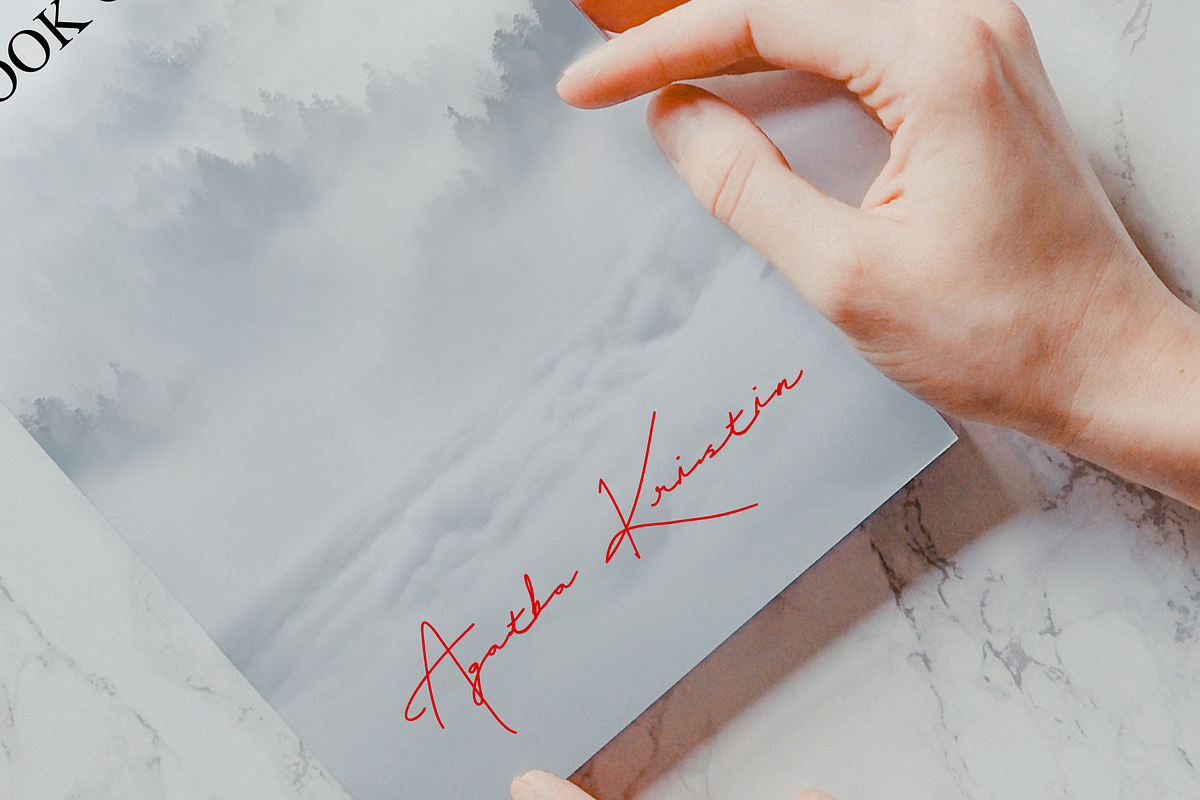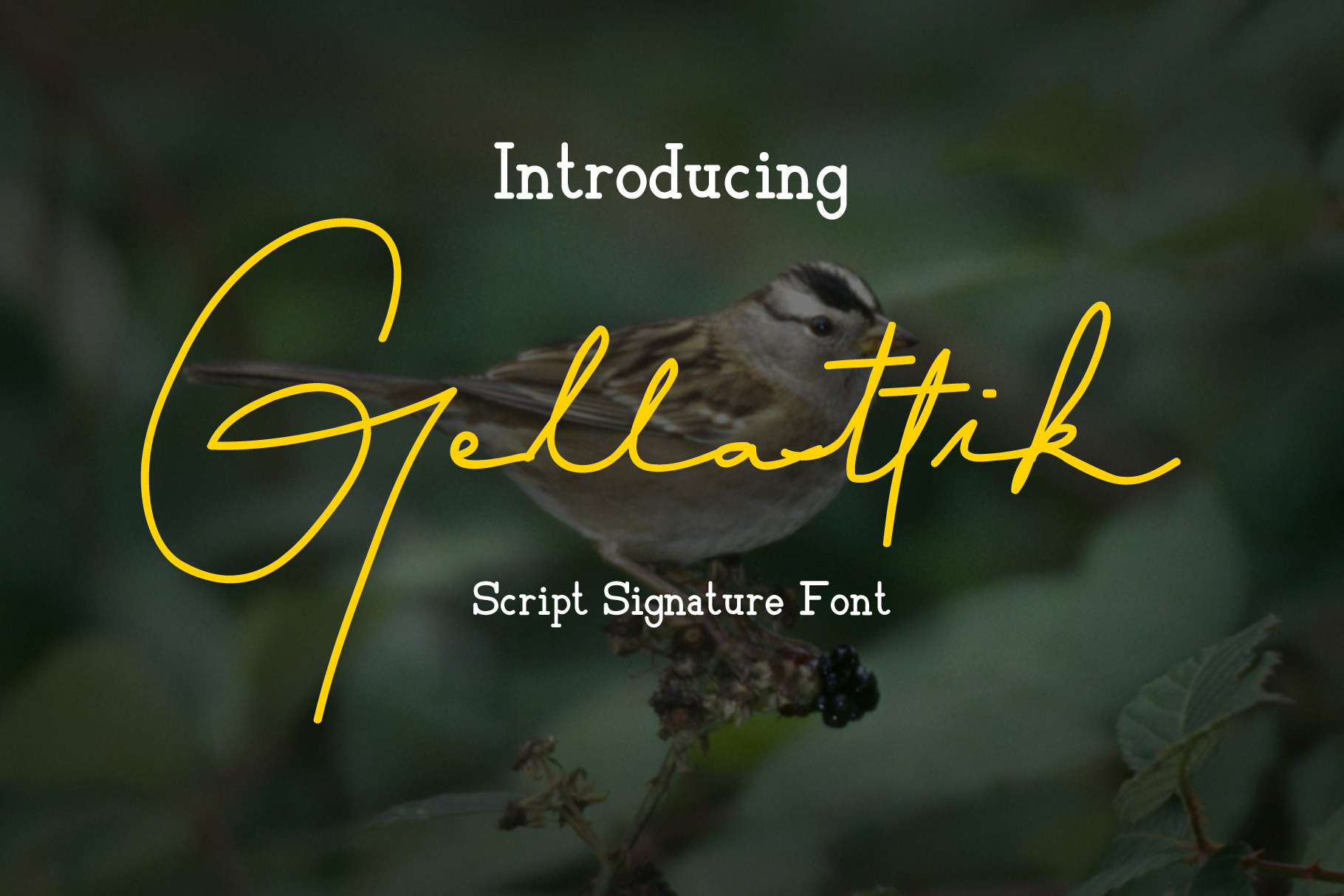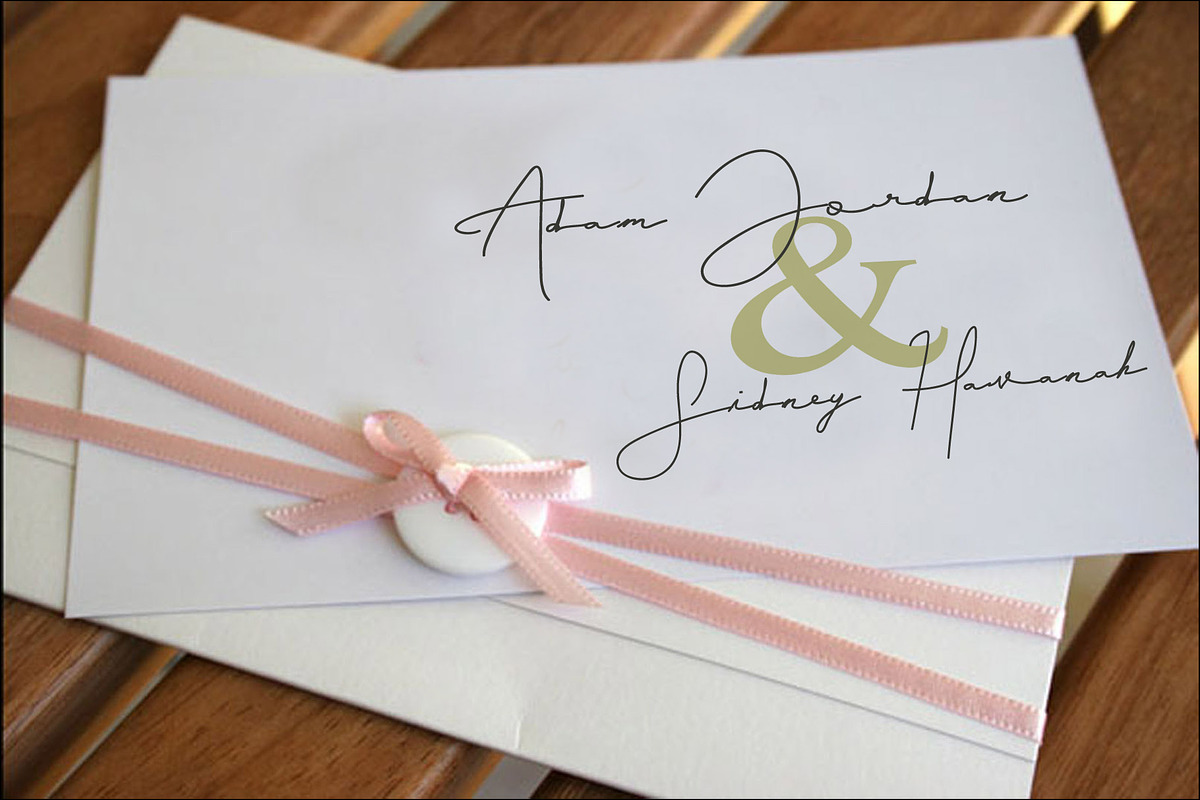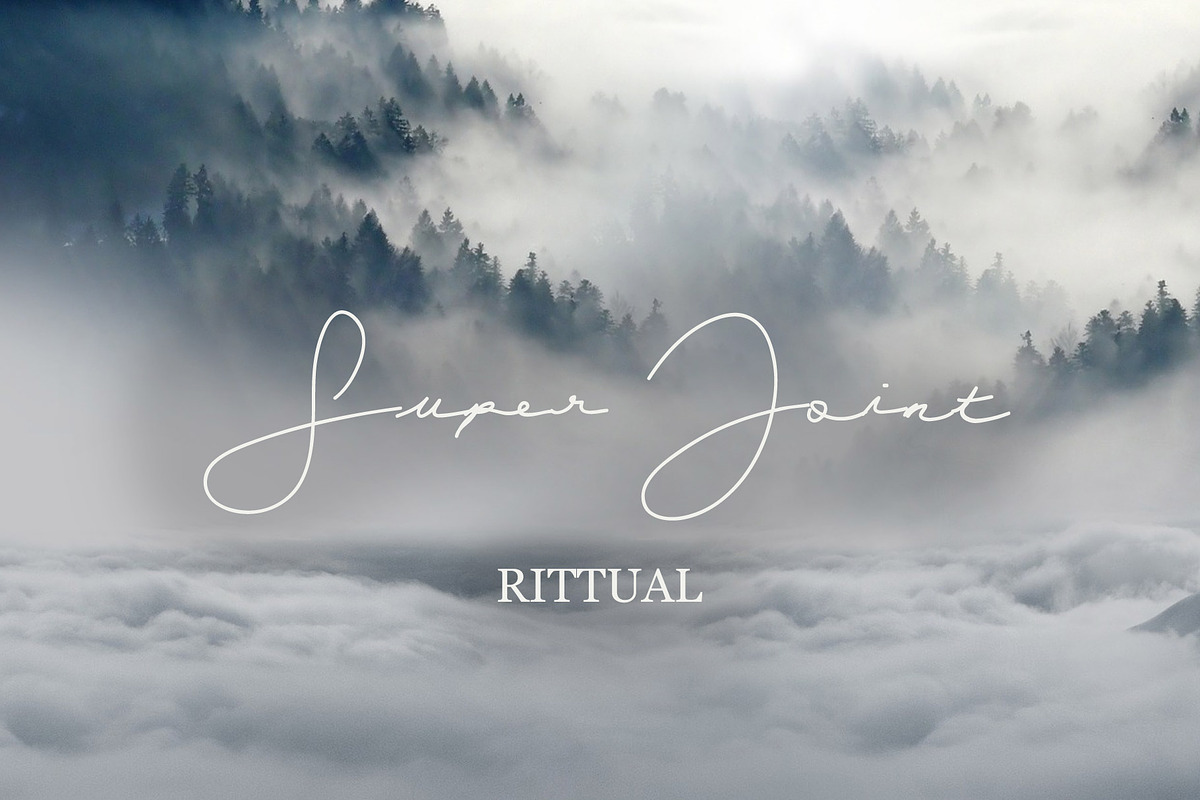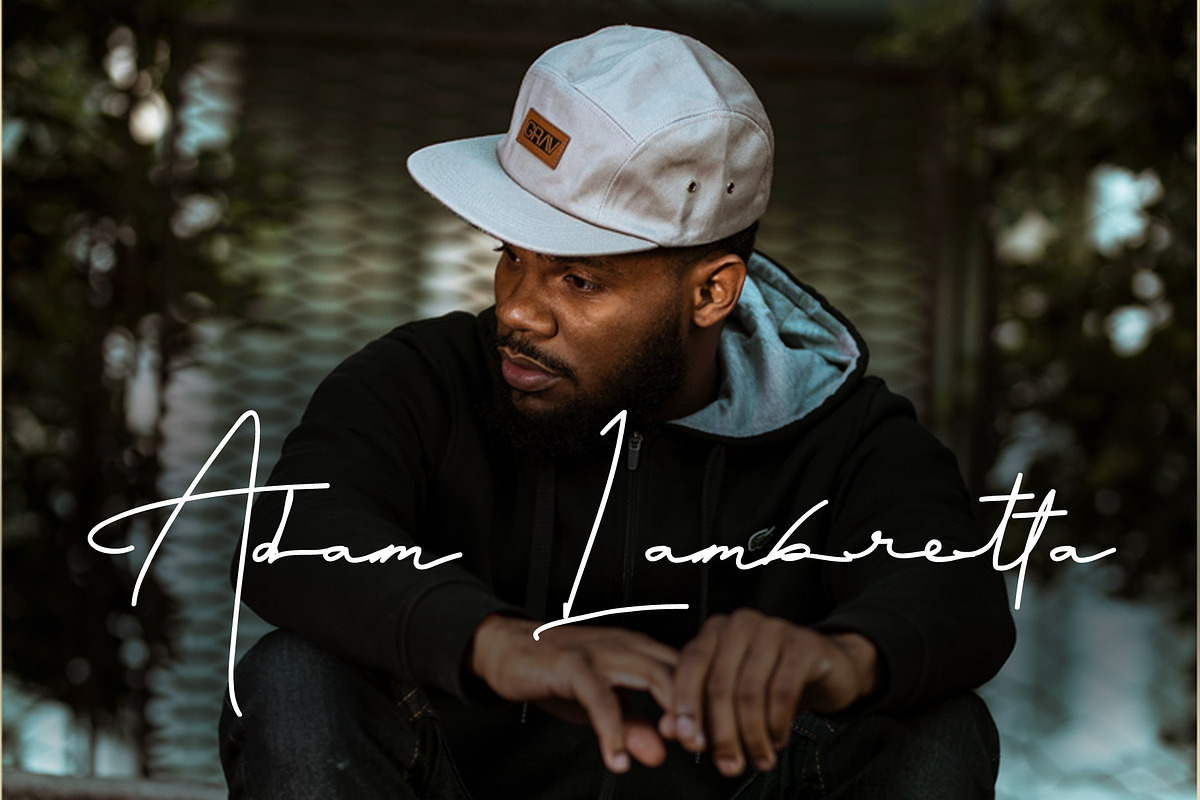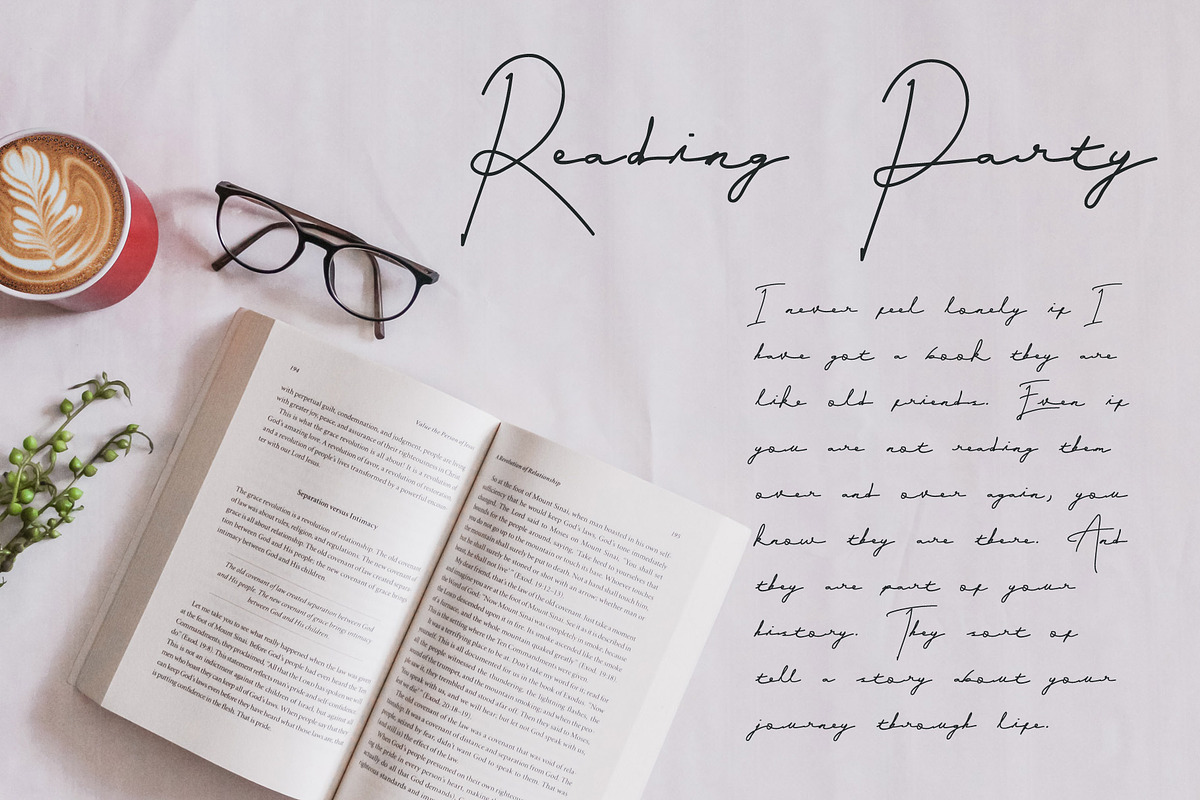
Gellattik - Script Signature Font
Meet my new font Gellattik
Gellattik Script signature - a new modern & fresh script with a handwritten and script style make this font looks elegant, natural, stylish and perfect for any awesome projects that need handwriting taste.
Gellattik would perfect for photography, watermark, social media posts, advertisements, logos & branding, invitation, product designs, label, stationery, wedding designs, product packaging, special events or anything that need handwriting taste.
Gellattik includes full set of lovely uppercase and lowercase letters, multilingual symbols, numerals and punctuation. This is so perfect for Vintage Design Style, Logo, Poster, etc